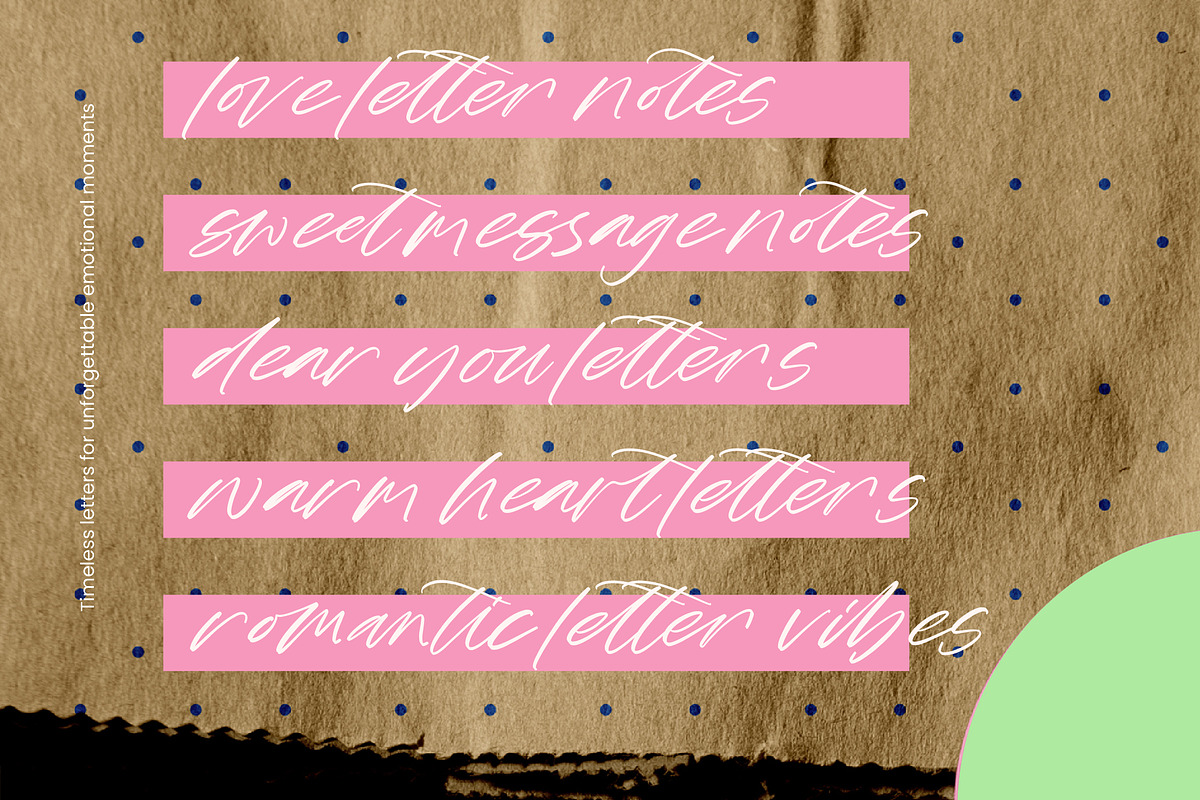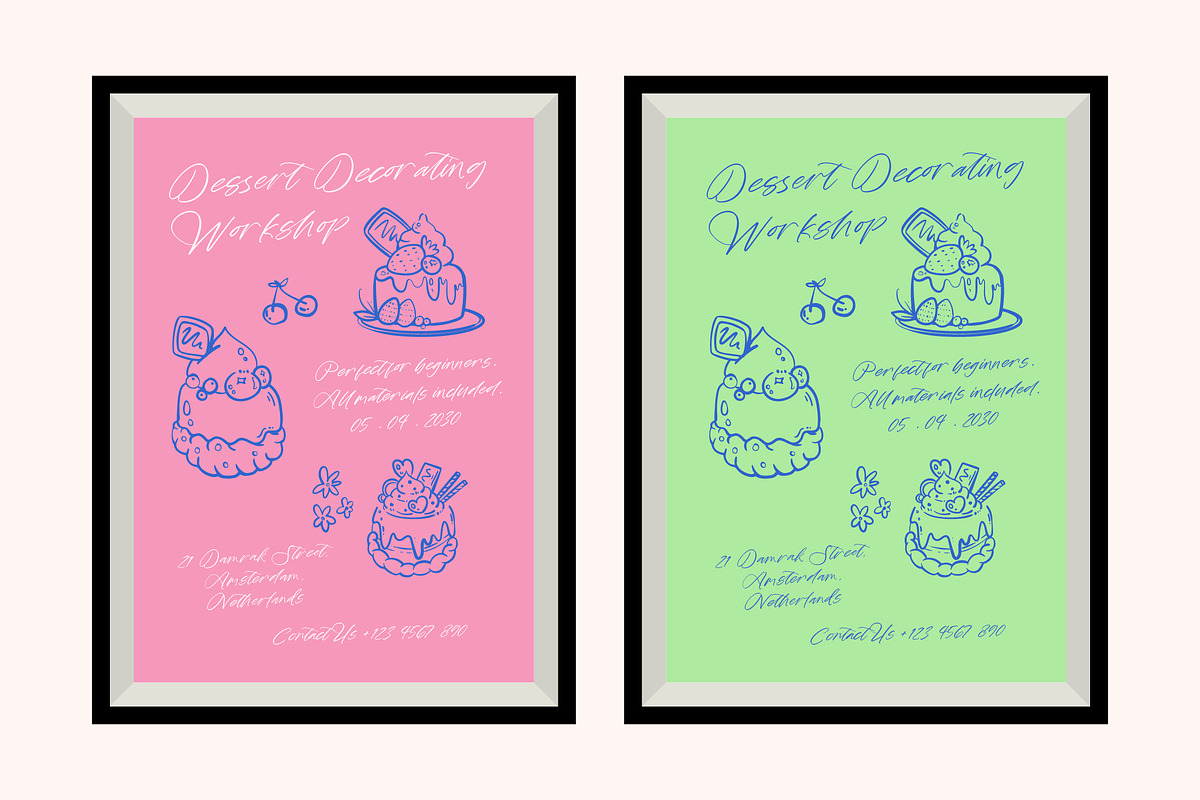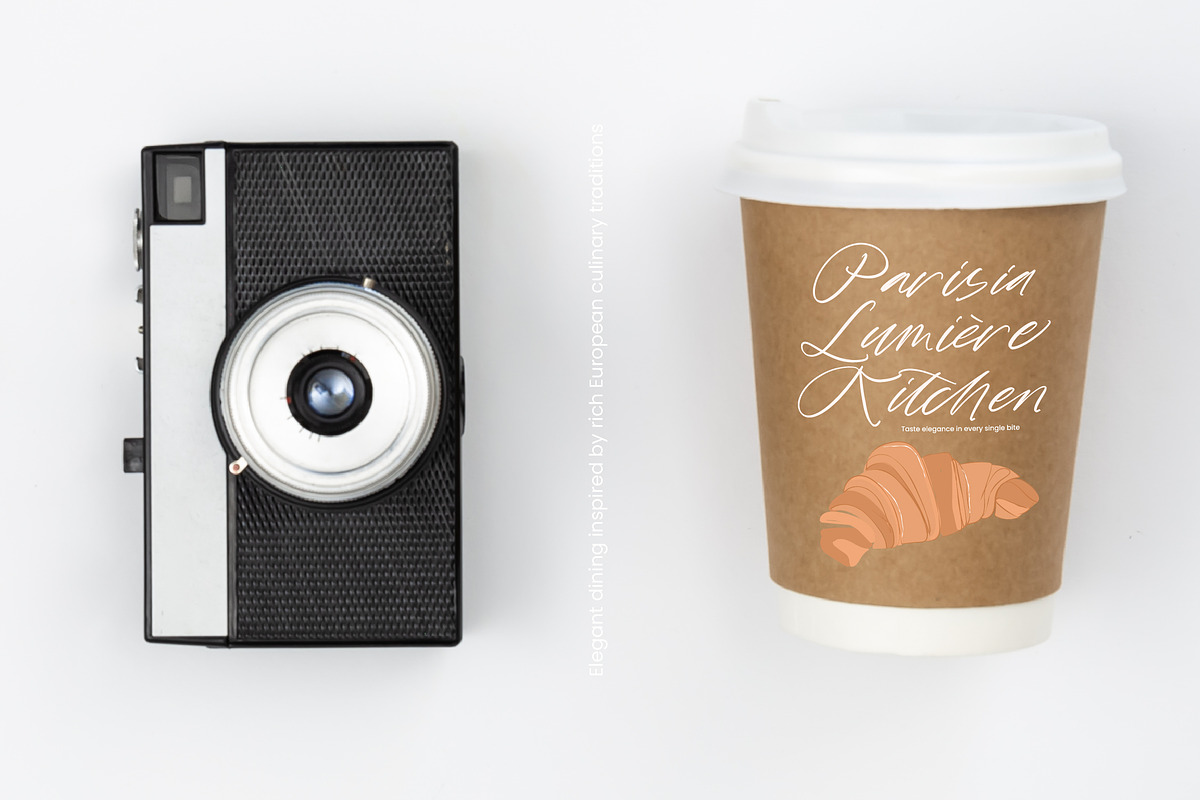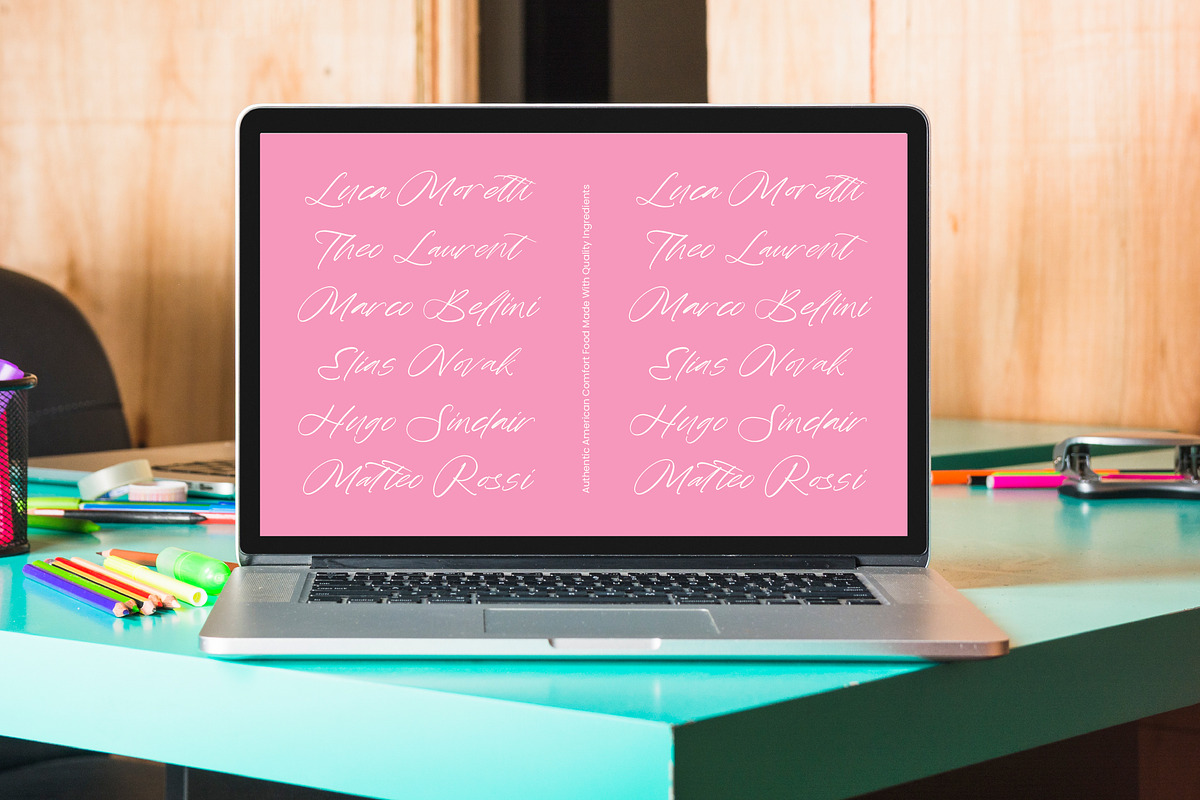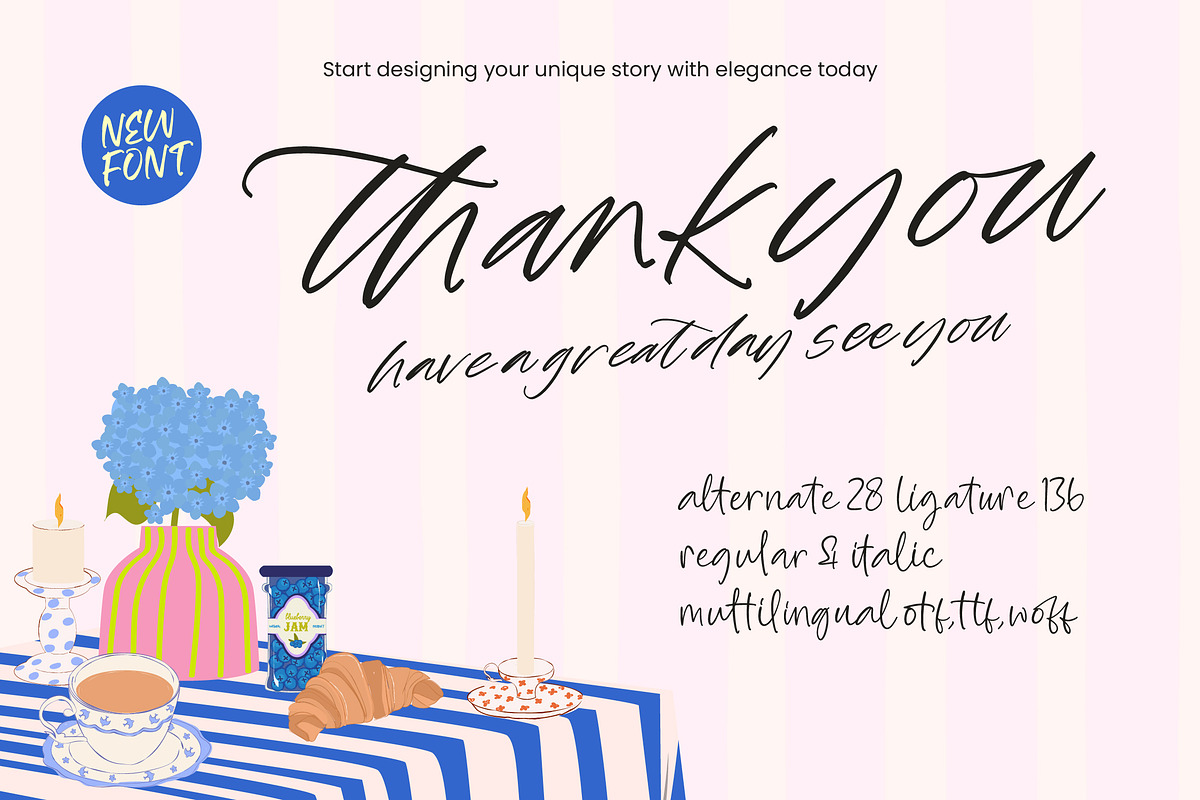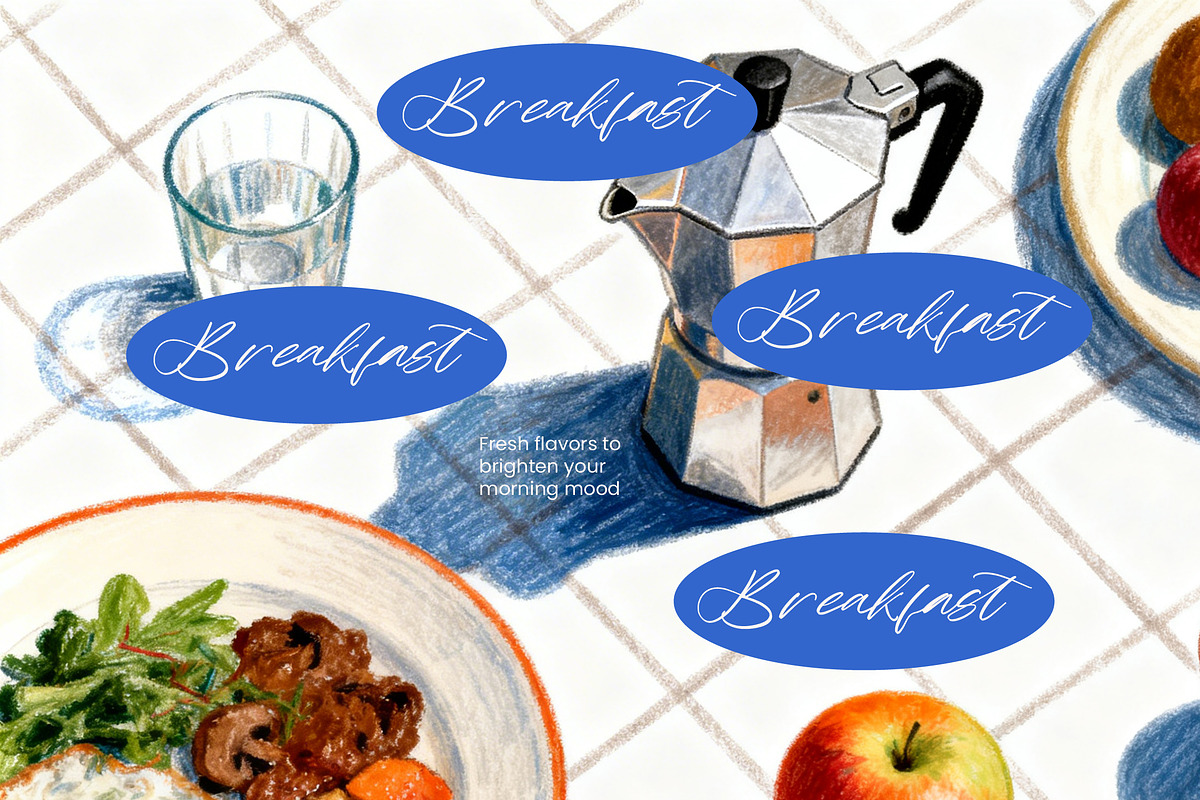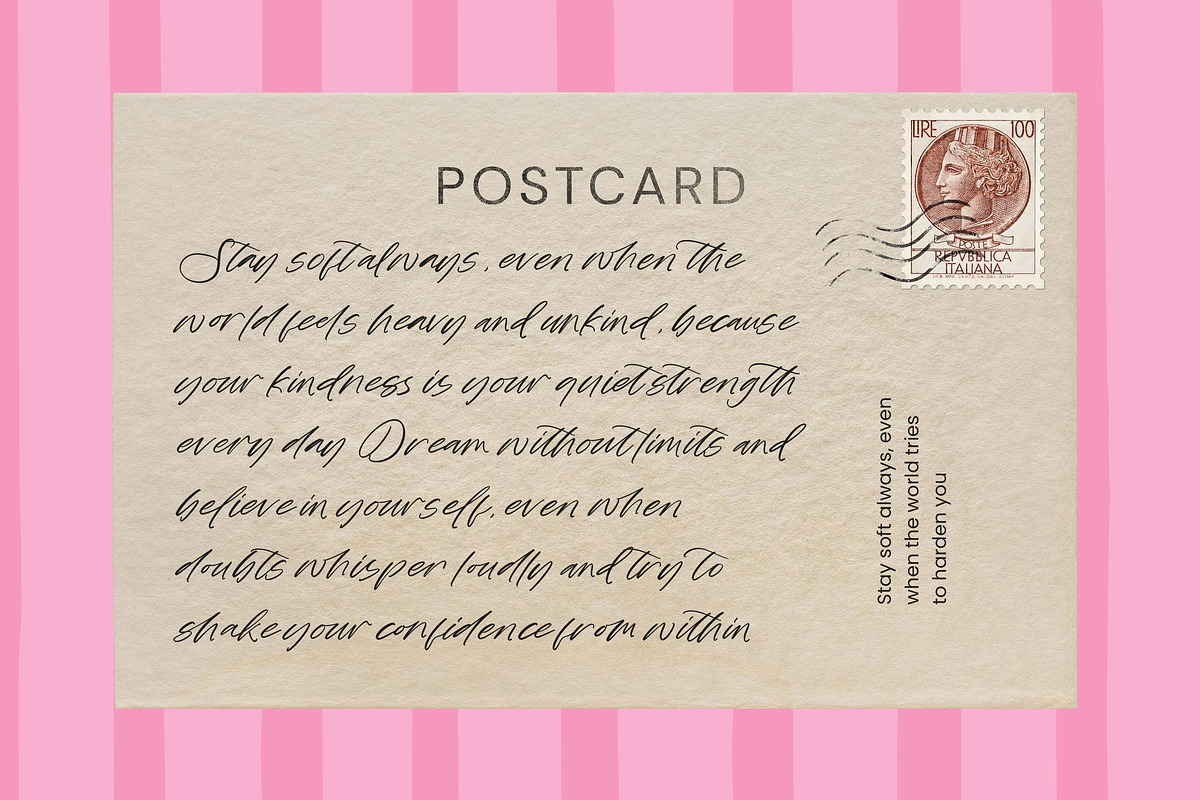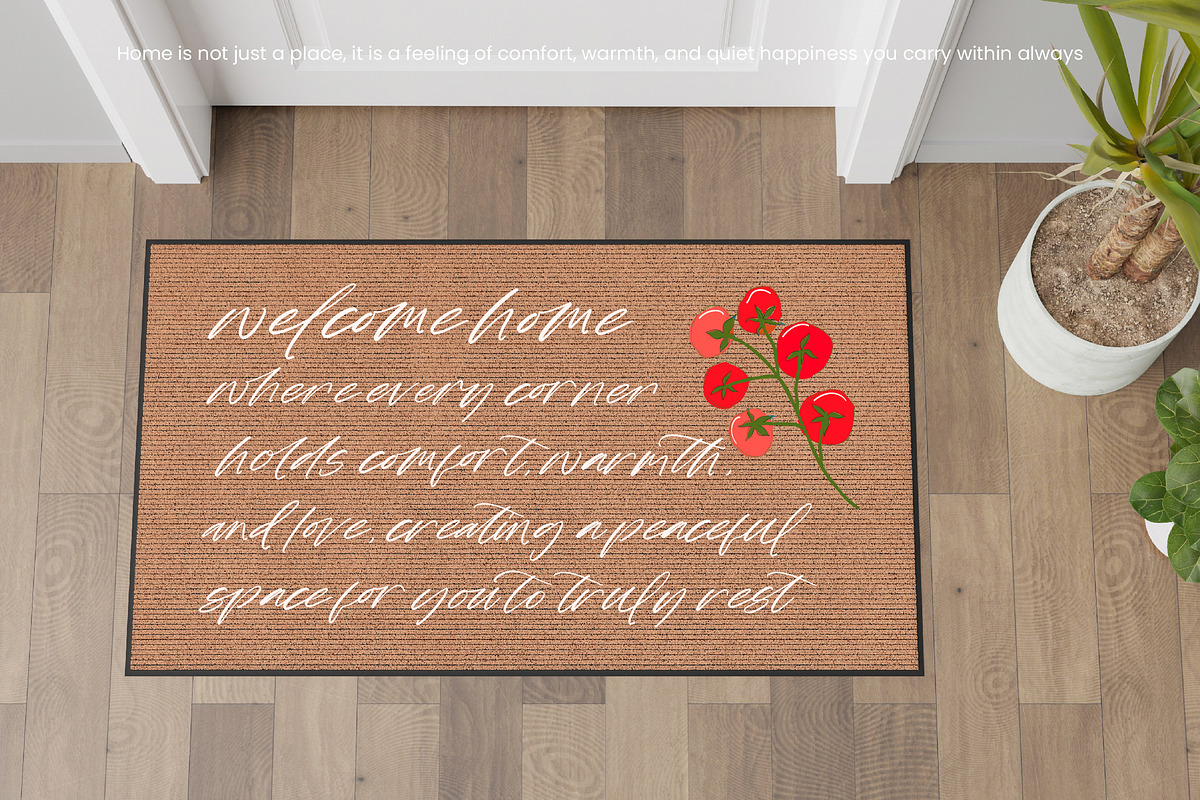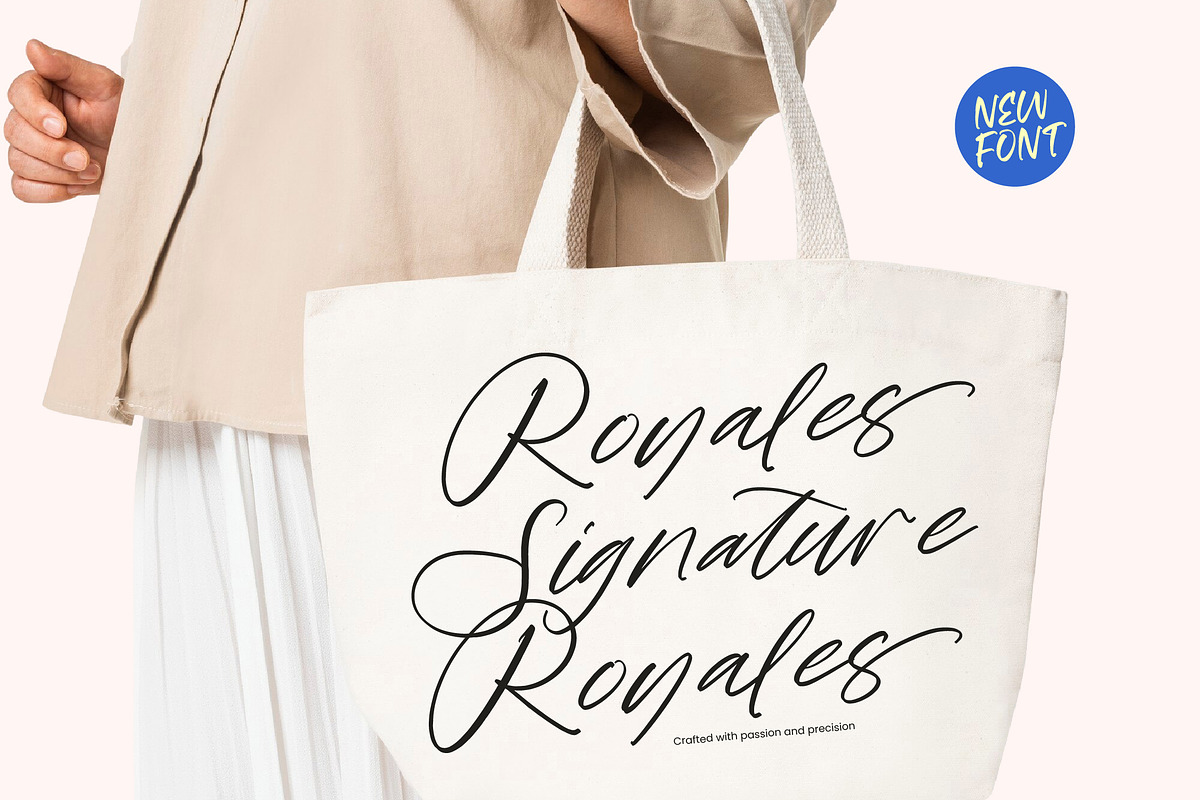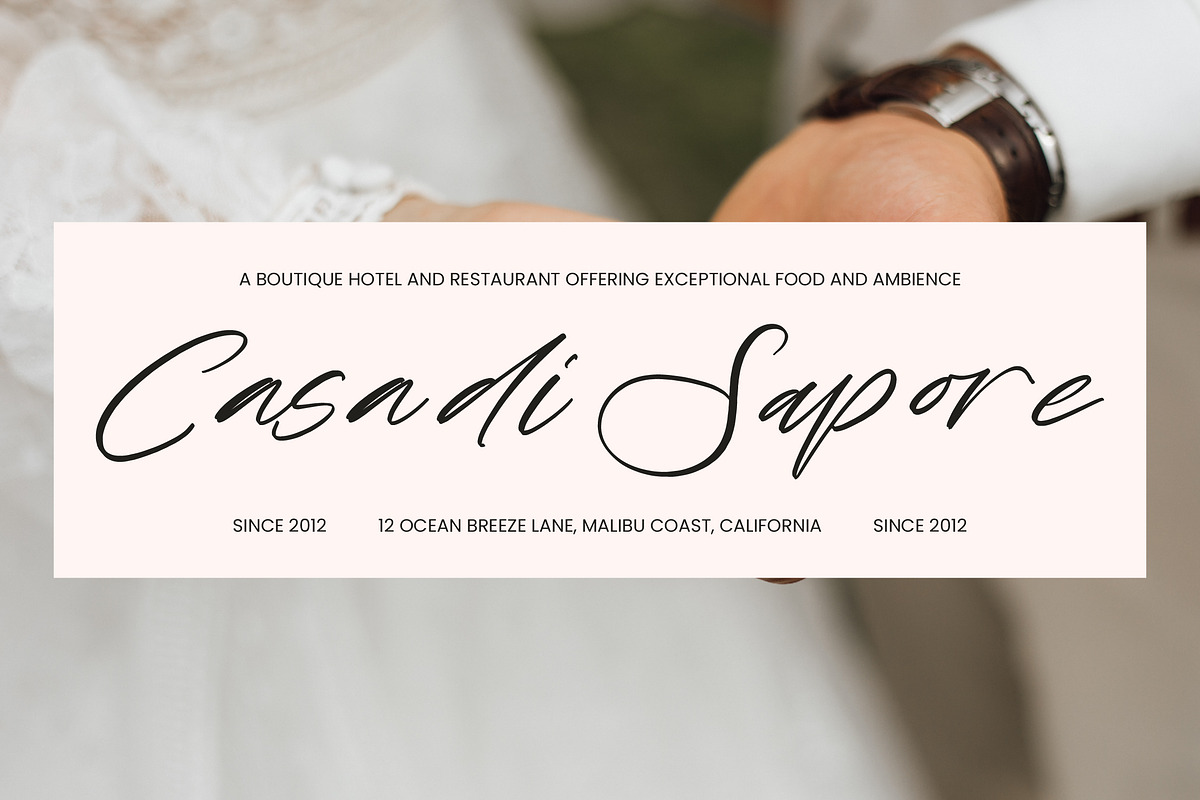
Rustic Diary Elegant Script Font
Rustic Diary - Elegant Script Font , Elevate your creative vision with a typeface that embodies organic sophistication and effortless charm. Rustic Diary - Elegant Script Font captures the essence of refined, hand-drawn artistry, offering a fluid aesthetic that feels both personal and professional. This handwritten script brings a unique sense of intimacy and warmth to any canvas, making it a premier choice for designers seeking to blend modern elegance with a rustic, artisanal charm that commands attention.
Built with versatility at its core, this typeface delivers exceptional functionality and expansive character sets for the modern designer. With its extensive multilingual support, Rustic Diary - Elegant Script Font adapts seamlessly across global markets, making it incredibly versatile for international projects. It features an impressive collection of 136 ligatures and specialized alternates that ensure a fluid, custom look in every layout, providing a consistent brand voice for diverse linguistic audiences.
Unlock a new level of prestige for your project with a typeface designed specifically for high-end visual storytelling and luxury branding. Rustic Diary - Elegant Script Font is the ideal application for upscale packaging, bespoke editorial design, and premium social media content. It is perfectly suited for wedding stationery and lifestyle photography where a sophisticated, handcrafted touch is necessary to elevate the overall user experience and brand perception.
Transform your typography into a powerful narrative tool that leaves a lasting impression on every viewer. Beyond its visual appeal, Rustic Diary - Elegant Script Font offers a professional edge that streamlines the creative process while maximizing visual impact. Available in OTF, TTF, and WOFF formats, it ensures complete compatibility for both print and digital environments. Choosing Rustic Diary - Elegant Script Font allows you to craft a distinctive, authentic identity that thrives in a competitive commercial landscape.